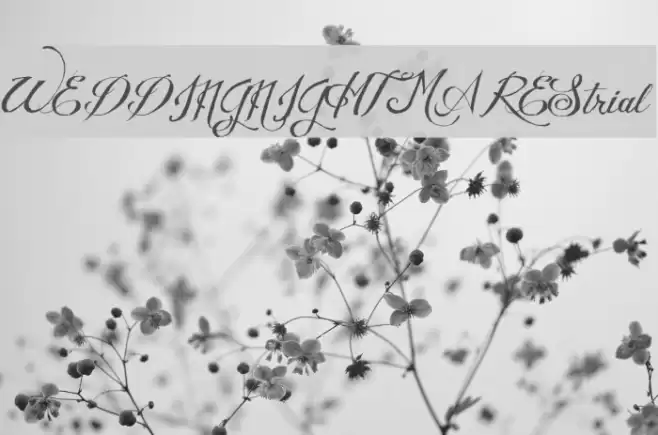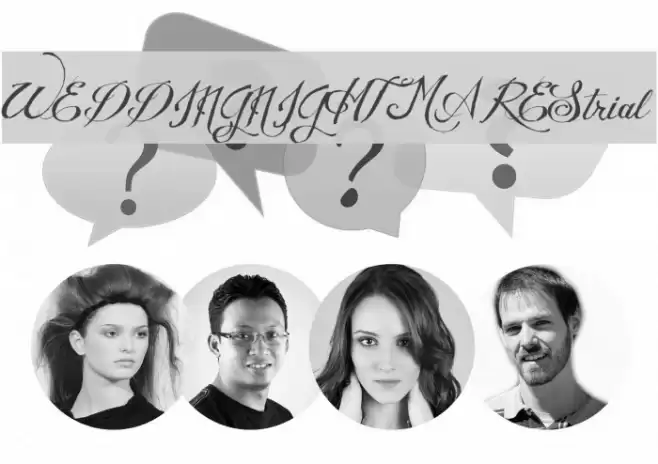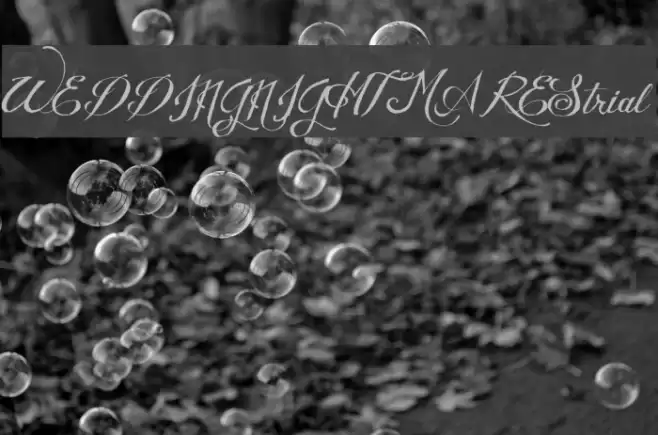
WEDDINGNIGHTMAREStrial Font
WEDDINGNIGHTMAREStrial Description
This font features an elegant and intricate script style, characterized by its flowing, cursive letterforms. The uppercase letters are particularly ornate, with elaborate swashes and flourishes that give them a decorative, almost calligraphic appearance. The lowercase letters maintain a consistent style, with a slightly more restrained design that complements the uppercase characters. The font's overall aesthetic is sophisticated and romantic, making it ideal for formal occasions. The special characters, while not shown, are likely to follow the same decorative theme, enhancing the font's versatility.
An elegant, ornate script font with flowing, decorative letterforms from Uncategorized fonts.
- Proposed Projects: Ideal for wedding invitations, event branding, elegant logos, and high-end product packaging.
- Contrast: High
- Use Case: Headlines, Invitations, Logos